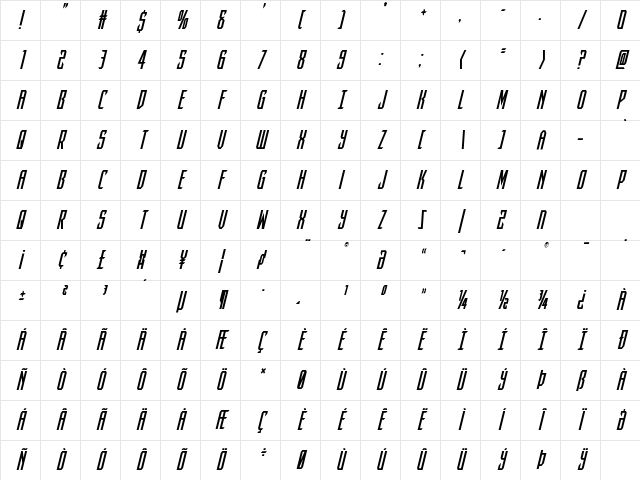
Dark Dominion Condensed Italic Free Font
Dark Dominion Condensed Italic Condensed Italic
Style: Condensed Italic
Design Context for Dark Dominion Condensed Italic
Dark Dominion Condensed Italic is a composed and adaptable typeface that performs quietly and consistently across a wide range of design contexts. The slanted form adds forward momentum and visual energy. Its narrow stance lets it pack a punch even in space-constrained designs.
Pro Tip: Use Dark Dominion Condensed Italic for emphasis, pull quotes, and subheadings where its slanted energy can add rhythm to the layout.